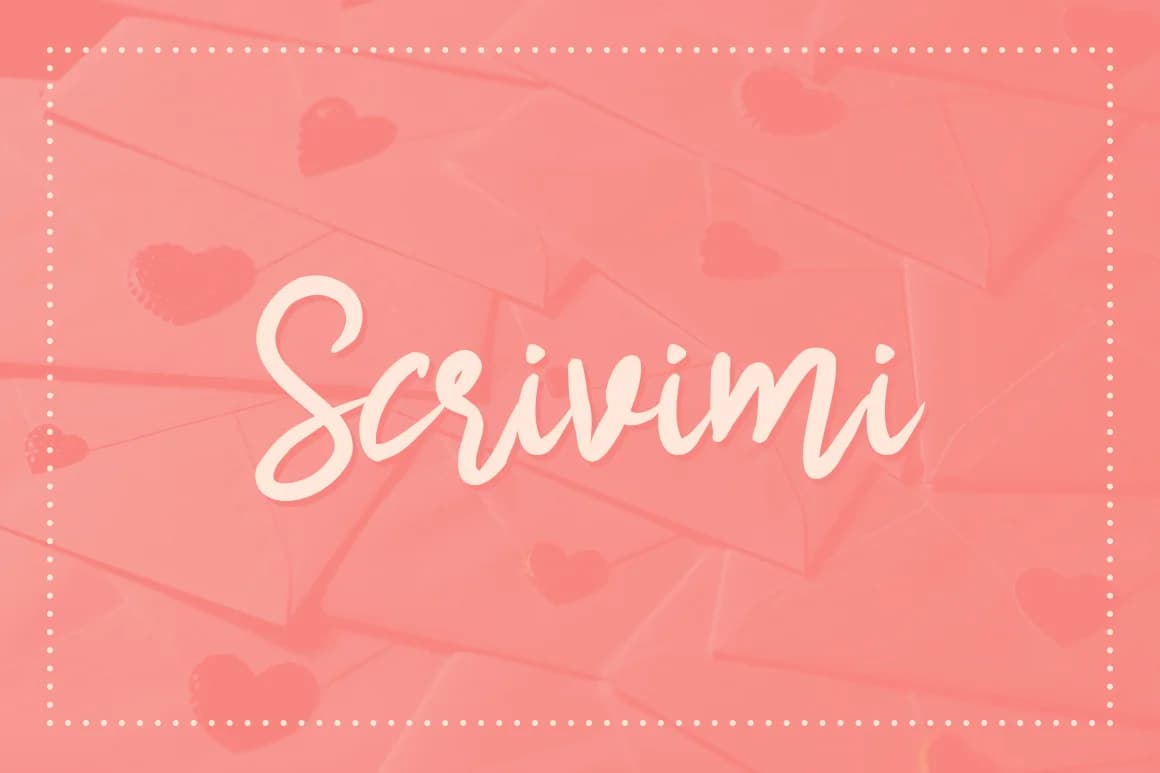
About Scrivimi Font
Scrivimi Font by GUD is an elegant handwritten script that brings genuine pen-and-ink character to digital designs. This flowing typeface captures the organic feel of hand-drawn lettering without sacrificing clarity, making it equally suited for both headline treatments and body text applications. The font's natural rhythm and consistent letterforms create a sense of authenticity that resonates with audiences across multiple mediums and design disciplines.
The script's genuine handwritten quality makes it particularly effective for luxury wedding stationery design, artisanal product labels, handmade gift tags, and boutique restaurant branding. Whether crafting invitation suites, designing artisanal cosmetics packaging, or creating personalized event materials, Scrivimi delivers the intimate character that distinguishes premium designs from standard offerings. Designers appreciate how its natural curves and authentic letterforms convey warmth and personality while maintaining the professional polish required for established branding applications.
Available in multiple weights and variations, Scrivimi offers considerable flexibility for diverse creative projects. Its broad character set supports extended language coverage, making it accessible to international design communities across the globe. The font's versatility extends equally well to digital and print applications, delivering consistent visual quality regardless of medium. For anyone seeking a handwritten script that feels personal yet professional in its execution, discover this font on Creative Fabrica.
Scrivimi Font is a script font that shines as a display or heading face. Pair it with a clean sans-serif or serif font for body text — the contrast creates a clear hierarchy while the two styles stay balanced and easy to read.